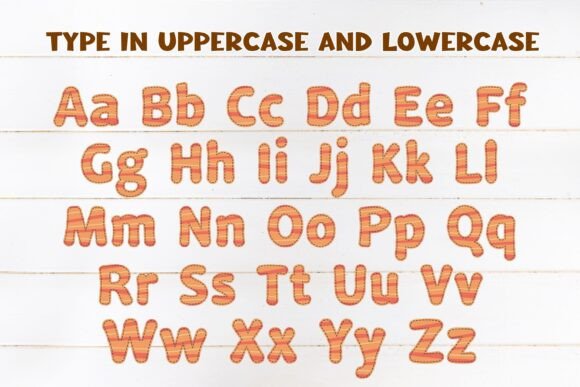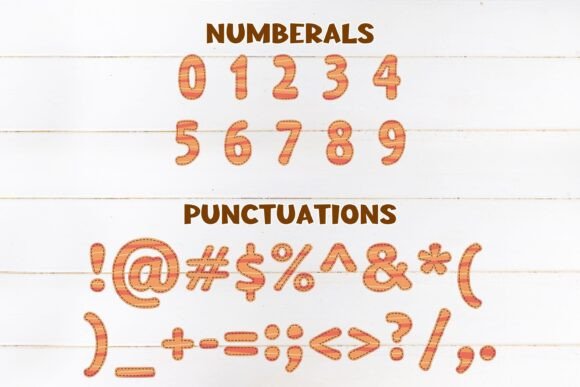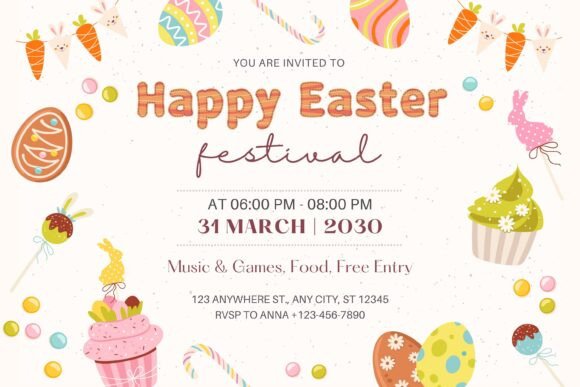
Introduction to Orange Stripes Font
As a designer, there’s no feeling quite like the rush of creating something new and exciting for a client. It’s that moment when the project’s concept finally comes together, and you can envision the final product in all its glory. For Easter-themed designs, one of the most essential elements is often a vibrant and playful color font – and that’s where the Orange Stripes Font comes in.
This enchanting font is perfect for adding a touch of magic to your designs, whether you’re working on a t-shirt design, digital imprint, or craft creation. With its transparent background and high-quality design, the Orange Stripes Font is a valuable resource for any designer looking to elevate their creative project.
About the Orange Stripes Font
Key Features of Orange Stripes Font
- High-quality design resource ideal for creative projects requiring a unique and eye-catching font.
- Unique characteristic: transparent background, allowing for seamless integration with any design element.
- Perfect for designers seeking a bold and modern font to elevate their creative project.
- Designed to be a versatile design resource, suitable for a wide range of creative applications, from branding to advertising.
Honest Review: Orange Stripes Font
As a designer, I’m always on the lookout for unique and high-quality design resources. Recently, I came across the Orange Stripes Font, and I must say it’s a great addition to any creative project.
- ✨ Unique and eye-catching design
- ✨ High-quality and clear typography
- ✨ Fully customizable
However, there are a few limitations to consider. The font only works well on solid-colored backgrounds, and it may not be suitable for use on transparent backgrounds. Additionally, the font can be a bit overwhelming if used in excess, so it’s best to use it sparingly in your design.
Overall, I’m impressed with the Orange Stripes Font and would definitely recommend it for creative projects that require a bold and eye-catching design.
To get the most out of the Orange Stripes Font, experiment with different font sizes, colors, and layering techniques. You can also use the font in conjunction with other design elements, such as images and graphics, to create a unique and eye-catching design.
The Orange Stripes Font is perfect for a variety of creative projects, including social media graphics, presentations, and documents. Its high quality resolution and transparent background feature make it ideal for use in a variety of design applications.
Yes, the Orange Stripes Font has a transparent background, allowing for easy integration with any design element. This feature makes it perfect for creating high-quality designs that require a clean and minimalist aesthetic.